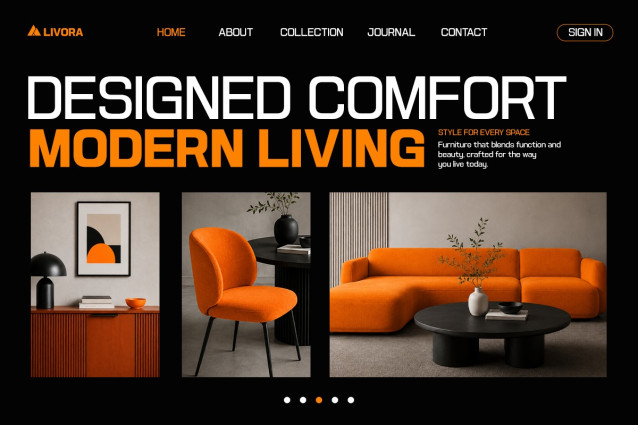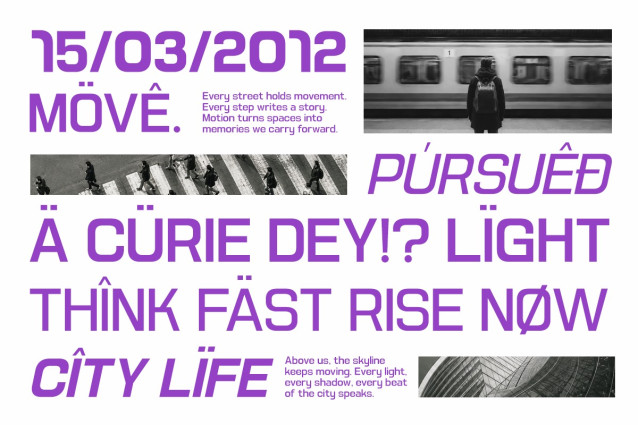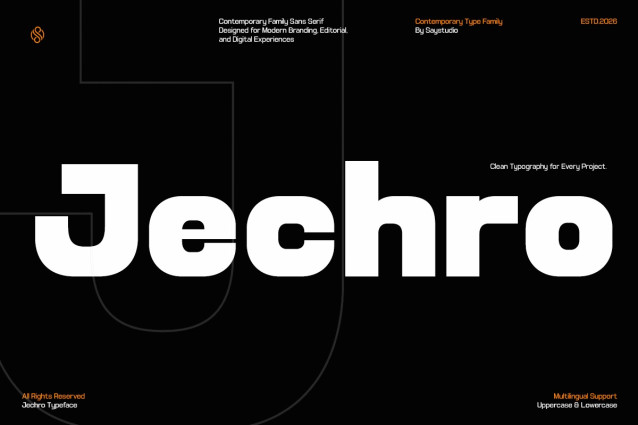
Jechro – Modern Geometric Family Font
Jechro is a modern geometric sans serif font family designed to bring clarity, confidence, and versatility to contemporary design.